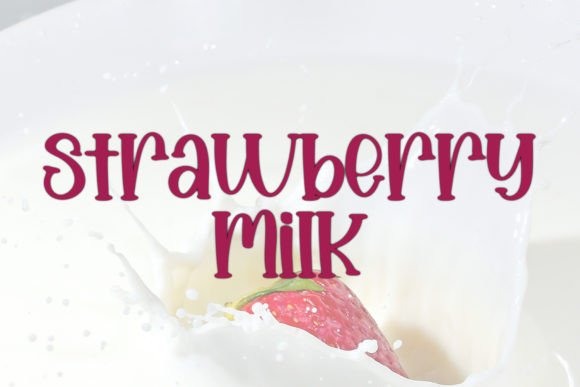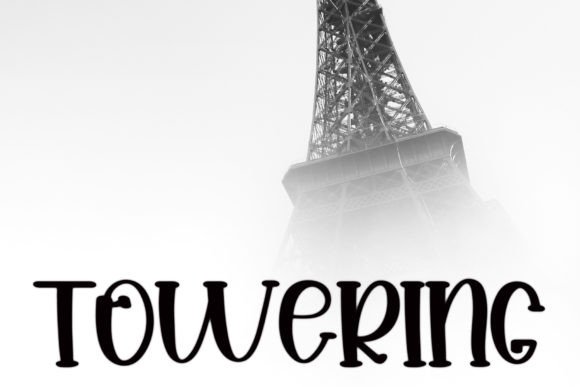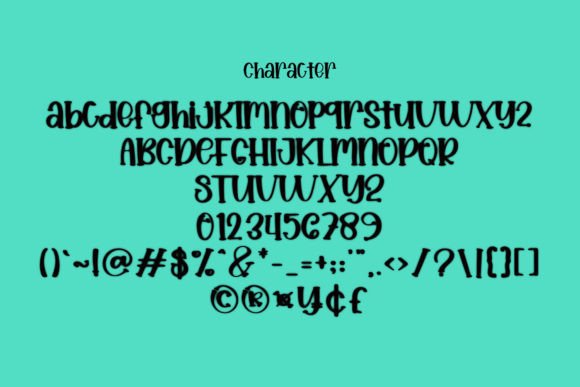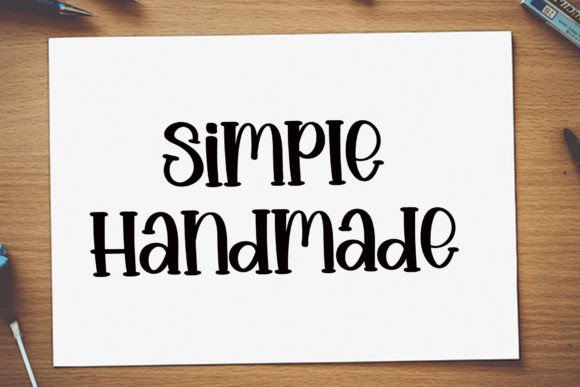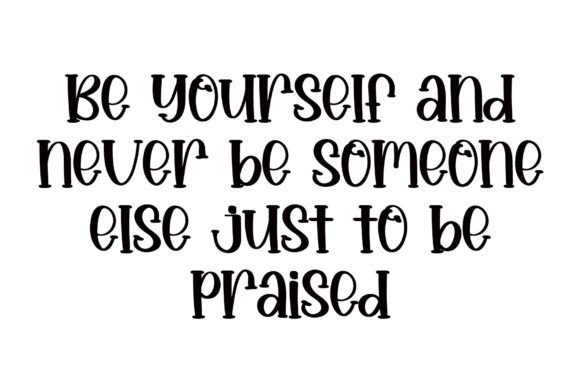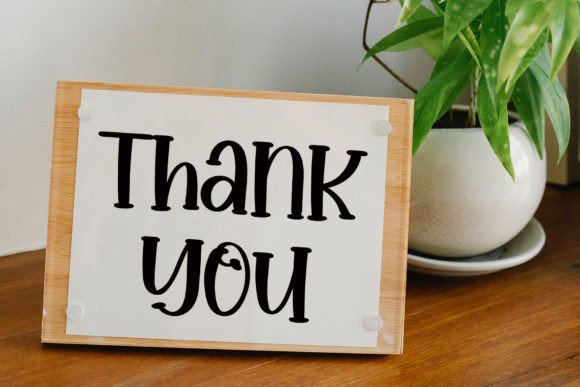
Introduction to Snack Crispy Font
Have you ever been brainstorming ideas for a creative project and suddenly, a spark of inspiration hits you? That’s exactly what happened when we stumbled upon the enchanting Snack Crispy Font. This delightful handwritten display font is a game-changer for designers, and we can’t wait to share its magic with you.
Whether you’re working on a romantic greeting card, a whimsical headline, or a high-quality design project, the Snack Crispy Font is guaranteed to add a touch of elegance and sophistication. With its wide range of applications and free download option, this versatile font is a valuable resource for designers of all levels.
Key Features of Snack Crispy Font
- High-quality, crisp font design perfect for creative projects, such as food packaging or advertising.
- Includes 5 unique font styles, each with its own distinct flavor and texture.
- Perfect for designers looking for a unique and eye-catching design resource for their next creative project.
Honest Review: Snack Crispy Font
I recently stumbled upon the Snack Crispy Font while searching for a free download to spice up a creative project. I must say, I was quite impressed with the overall quality of this design resource.
- ✨ The font’s crisp and clean design makes it perfect for modern branding and web design projects.
- ✨ It’s incredibly versatile, suitable for a wide range of creative projects, from logos to social media graphics.
- ✨ The font’s transparent background feature allows for seamless integration with various design elements.
- ⚠️ The font’s limited character set might make it less suitable for projects requiring extensive text editing.
- ⚠️ Some users may find the font’s style a bit too minimalistic, which may not be ideal for projects requiring bold or dramatic typography.
Overall, I’m quite pleased with the Snack Crispy Font and would definitely recommend it as a high-quality design resource for any creative project. With a little creativity, this font can add a nice touch to your design and really make it stand out.
How to Use Snack Crispy Font
Snack Crispy Font is a high-quality design resource perfect for any creative project. With its clean and modern aesthetic, this font is ideal for adding a touch of sophistication to your designs.
Experiment with different font sizes, colors, and styles to create unique and eye-catching designs. Use the font in combination with other design elements to create a cohesive and professional look.
Use Snack Crispy Font for:
- Marketing materials and brochures
- Web design and UI/UX
- Print design and advertising
Alternatives to Snack Crispy Font
1. Crispin Font
Crispin Font is a high-quality sans-serif font ideal for creative projects that require a clean and modern look. It features a transparent background, making it perfect for designers who want to add a touch of elegance to their designs. Crispin Font is available for free download and can be used for both personal and commercial projects.
When to use: Use Crispin Font for designs that require a high level of sophistication, such as luxury brand logos or high-end product packaging. Crispin Font compares favorably to Snack Crispy Font in terms of its high-quality design and versatility.
2. Snackster Font
Snackster Font is a fun and playful font that is perfect for creative projects that require a casual and approachable look. It features a bold and chunky design, making it ideal for designs that require a lot of visual interest. Snackster Font is available for free download and can be used for both personal and commercial projects.
When to use: Use Snackster Font for designs that require a fun and playful tone, such as children’s product packaging or social media graphics. Snackster Font compares favorably to Snack Crispy Font in terms of its bold and chunky design, but may lack the sophistication of Crispin Font.